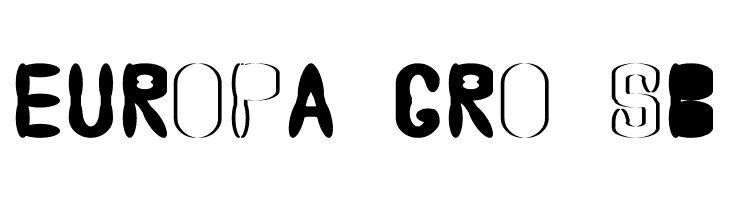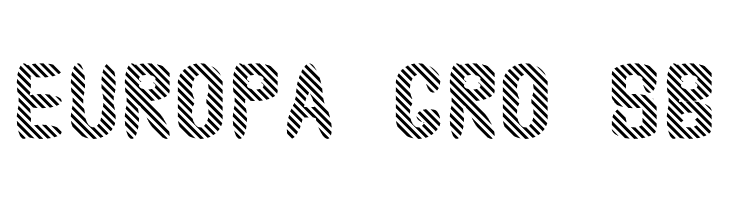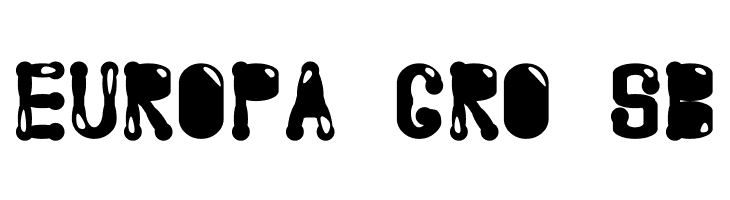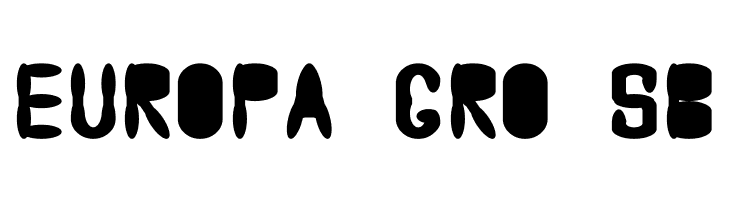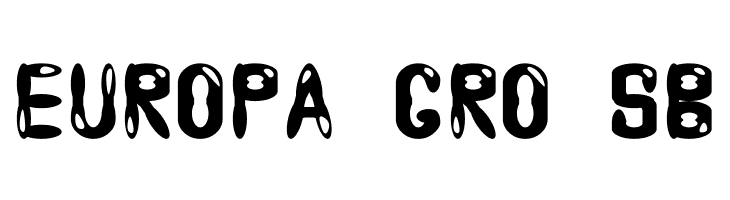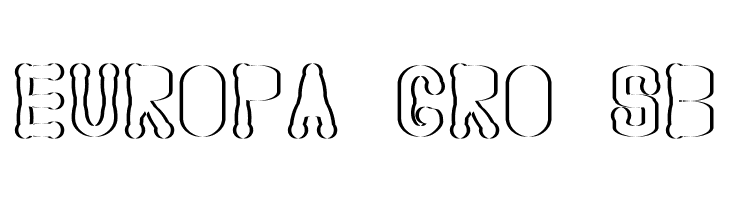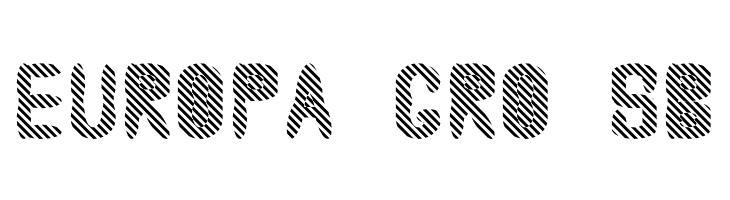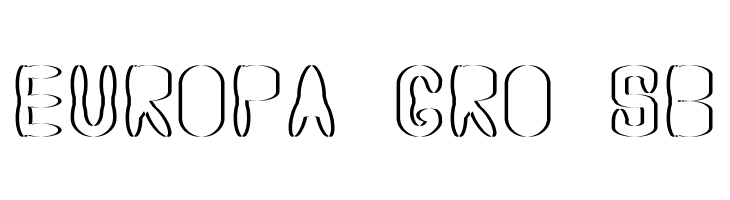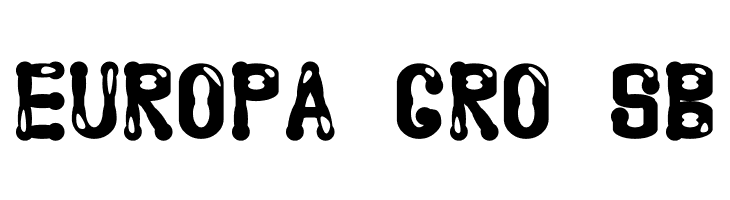
• Astakhov Access Degree ASF
A decorative, outline-style font with a playful, artistic flair.
• Astakhov Access Degree ASFSerif
A decorative, hand-drawn style font with bold outlines and textured interiors.
• Astakhov Access Degree Chaos
A bold, chaotic font with irregular, hand-drawn shapes and varying thicknesses.
• Astakhov Access Degree DL
A bold, decorative font with diagonal stripes for a dynamic look.
• Astakhov Access Degree DL2
A modern, decorative font with diagonal stripes and bold geometric shapes.
• Astakhov Access Degree F
A bold, playful font with rounded, organic shapes and a hand-drawn feel.
• Astakhov Access Degree G
A bold, playful font with organic, blob-like shapes and a whimsical style.
• Astakhov Access Degree G Serif
A bold, playful font with a liquid-like, dynamic appearance.
• Astakhov Access Degree GF
A bold, playful font with organic, blob-like shapes and high contrast.
• Astakhov Access Degree GF Serif
A bold, playful font with an organic, liquid-like design.